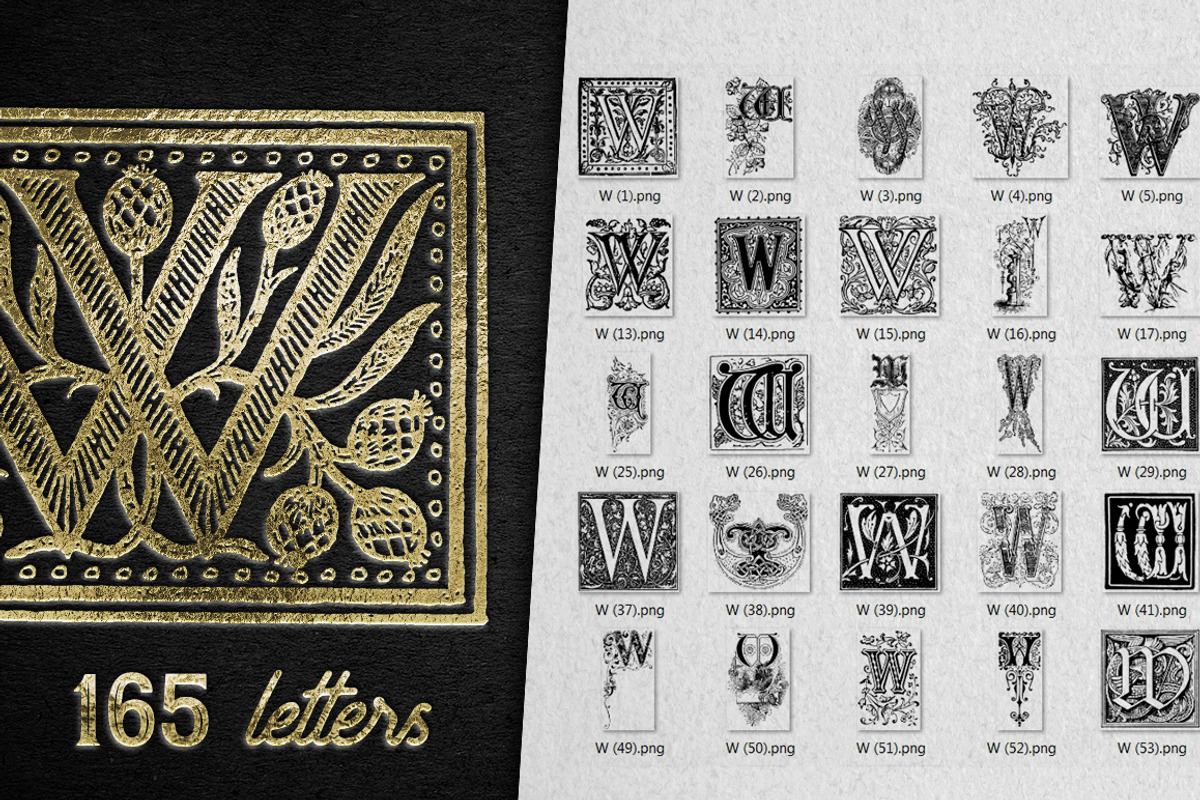
Vintage Letter W Vector and PNG Free Download is a beautifully crafted decorative graphic element perfect for retro-inspired design projects. With ornate detailing and an old-style serif form, this vintage letter “W” adds classic charm to logos, monograms, wedding invitations, signage, and antique-style packaging.
Whether you're creating a vintage label, personalizing merchandise, or adding a unique flair to a branding project, this letterform brings timeless elegance and hand-crafted appeal.